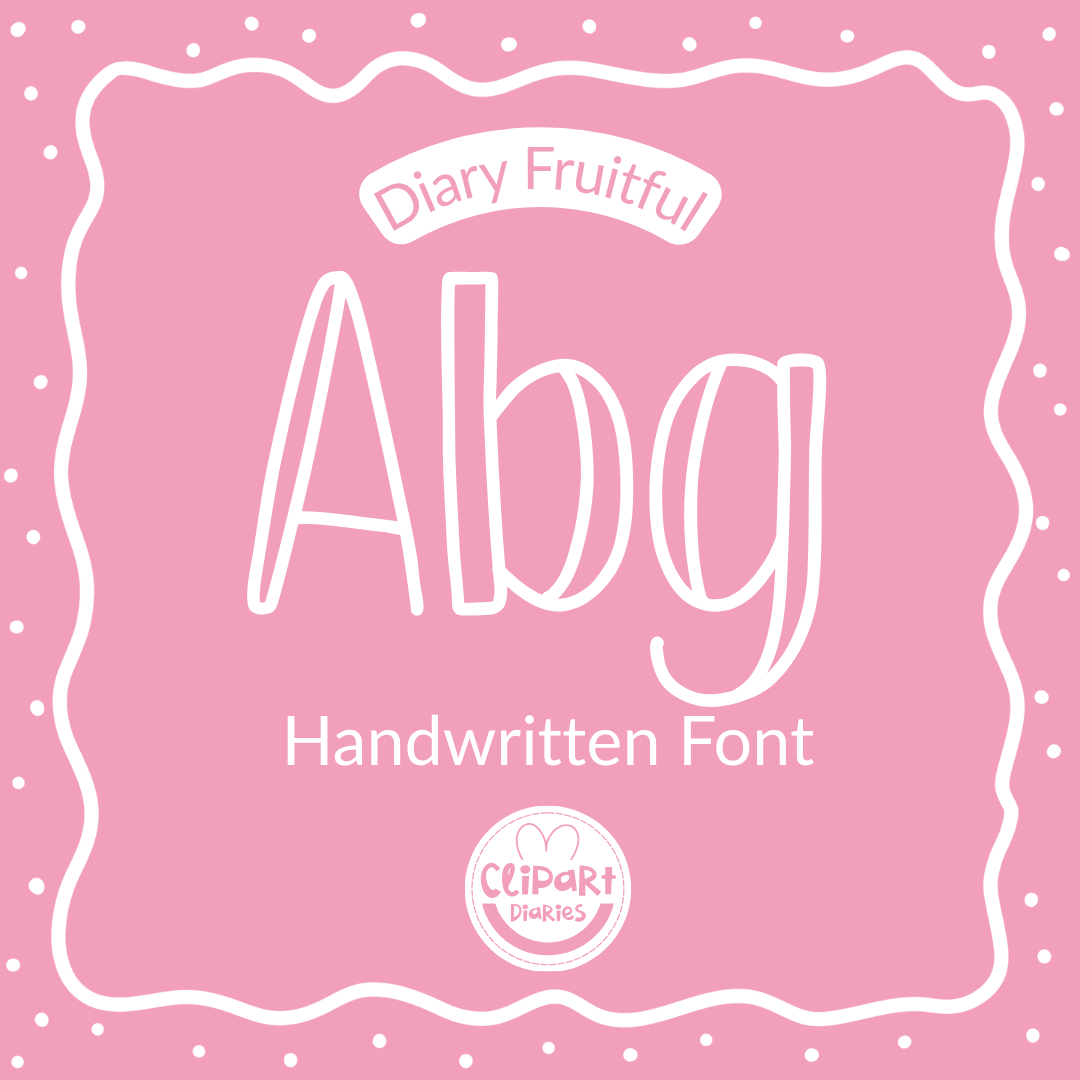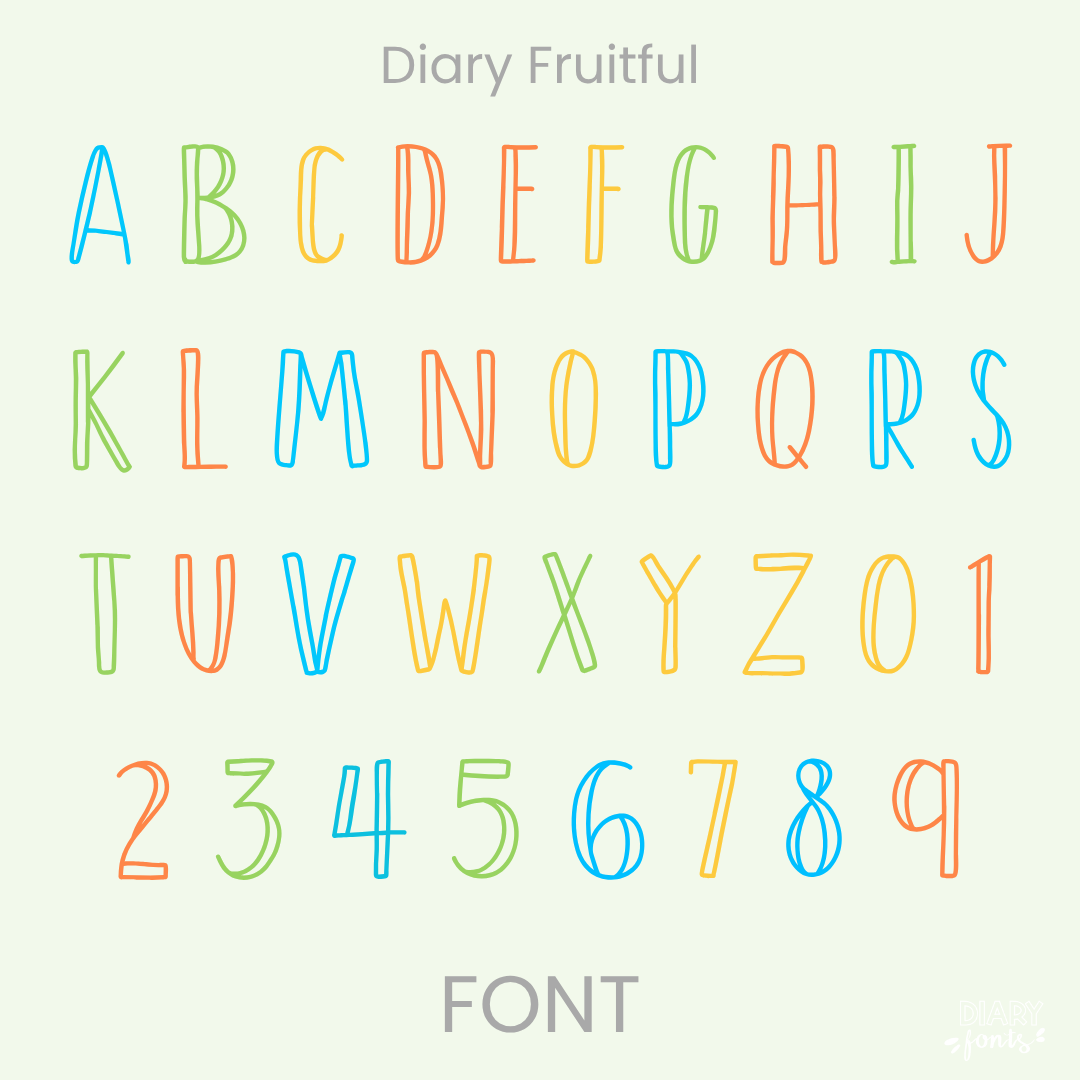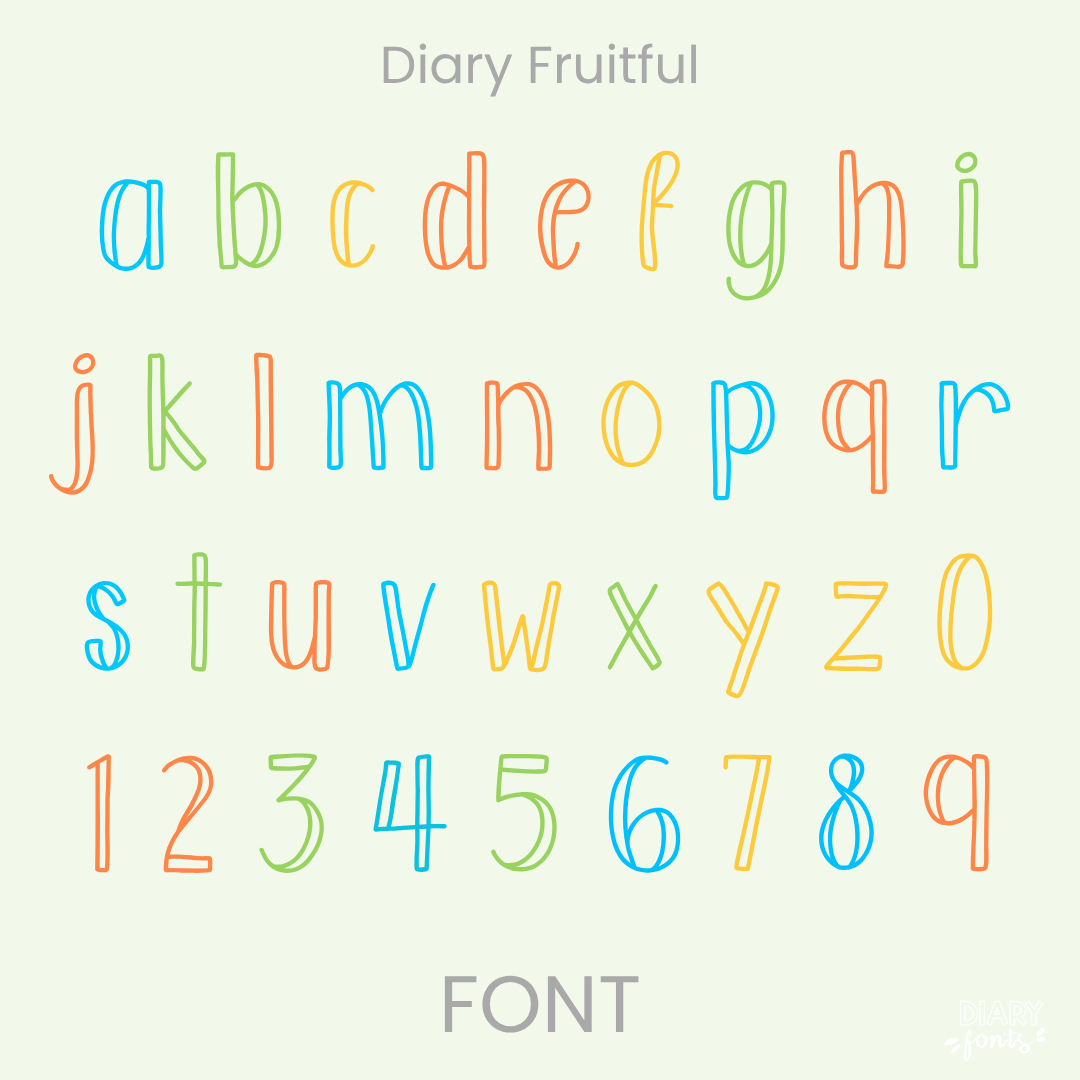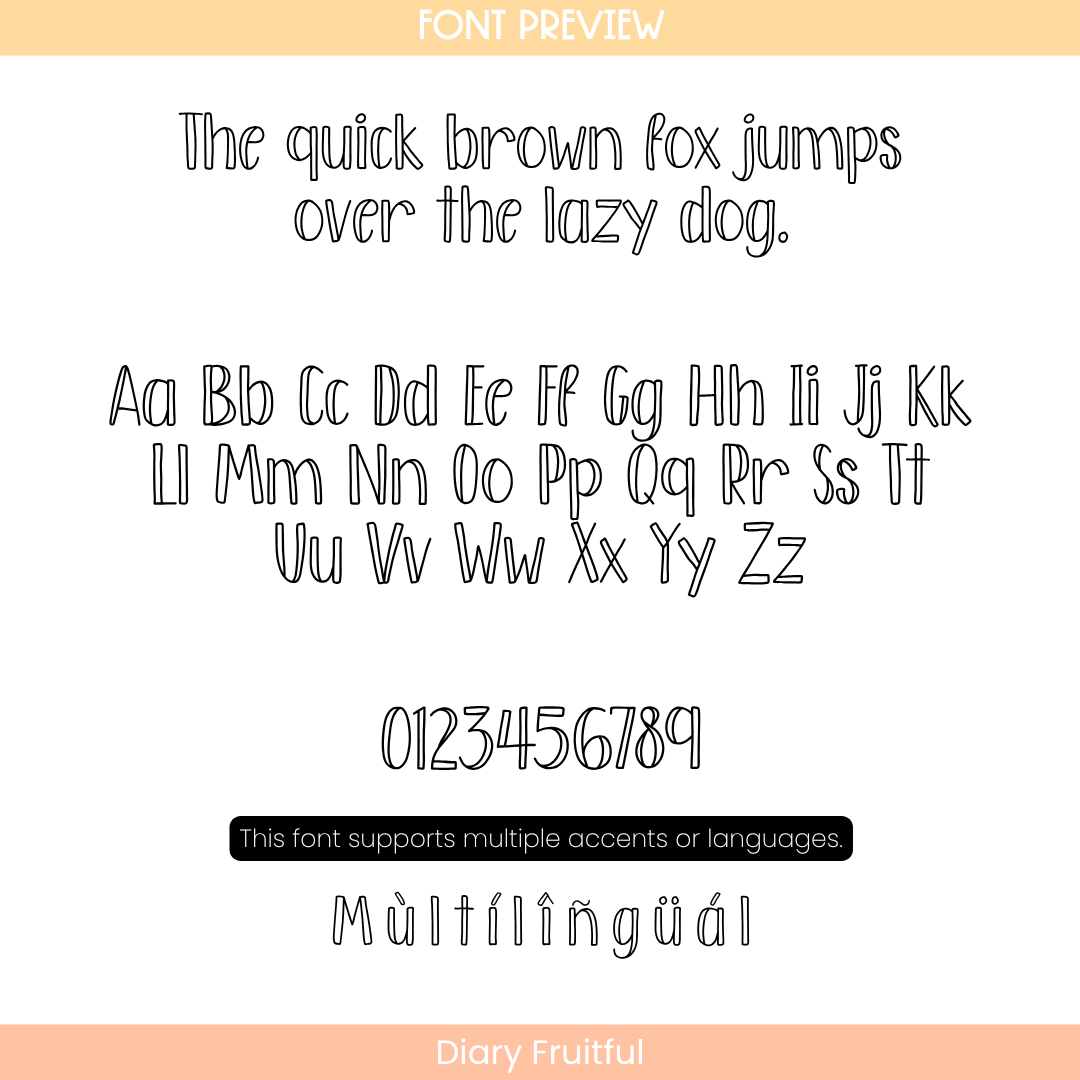
If you want to give your projects a cheerful and friendly look, Diary Fruitful is an excellent choice. It features neatly elongated, clean print characters that maximize vertical layout space while maintaining a warm, hand-drawn personality. This makes it highly legible for students while still feeling playful. It is especially effective for body text blocks, clean worksheets, daily morning slides, and structured classroom labels. The font includes a full set of uppercase and lowercase letters, numbers, and multiple accents to support different languages. It is ready for use in Canva, MS Office, and Adobe Apps, and it works perfectly with iPad apps like GoodNotes and Procreate. Whether for personal classroom use or commercial resources, this font adds a soft and approachable aesthetic to your work.
Diary Fruitful Font
The Diary Fruitful is a sweet, tall, and lightly condensed handwritten font designed to give your digital resources and classroom materials a charmingly organized look.